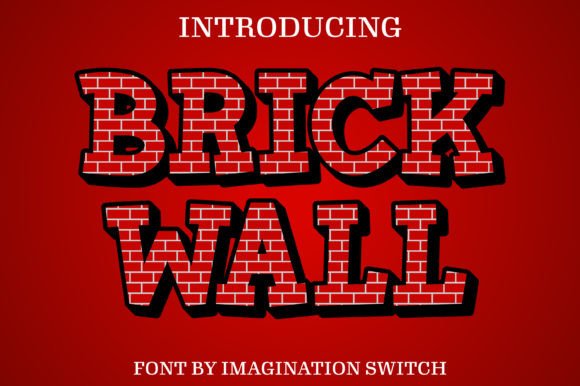
Immerse yourself in the world of creativity and let your designs radiate with the allure of the Brick Wall Font. This extraordinary typographic marvel, designed by Imagination Switch, captivates with its intricate fusion of colors, granting your projects an unparalleled visual dimension.
Journey through a spectrum of captivating hues, meticulously chosen to adorn each character. Discover the charm of individuality as every word and number dances with its own unique chromatic allure. This symphony of colors transforms ordinary text into mesmerizing artistry.
With the Brick Wall Font, limitations vanish, and endless possibilities unfold. Embark on a creative odyssey, crafting print designs that come alive with vibrancy. Weave enchanting web designs that transport users to a realm of visual delight. Manifest promotional materials that ignite imaginations and leave an indelible mark.
Express your message with unrivaled clarity and aesthetic elegance. The Brick Wall Font's exceptional legibility ensures that your words resonate with impact, while its visually captivating presentation elevates your designs to new heights of visual artistry.
Unleash your creativity without boundaries. The Brick Wall Font is your trusted partner in realizing your design aspirations. Transform your projects into stunning masterpieces, infusing them with a unique color touch that will captivate and enchant.
Don't miss out on the opportunity to elevate your design endeavors to new heights of brilliance. Embrace the Brick Wall Font today and unlock a world of creative possibilities.
The black version of this font expands your horizons of crafting capabilities, seamlessly integrating with Cricut Design Space and various cutting machines. Unleash your imagination and create stunning designs that materialize your artistic vision.